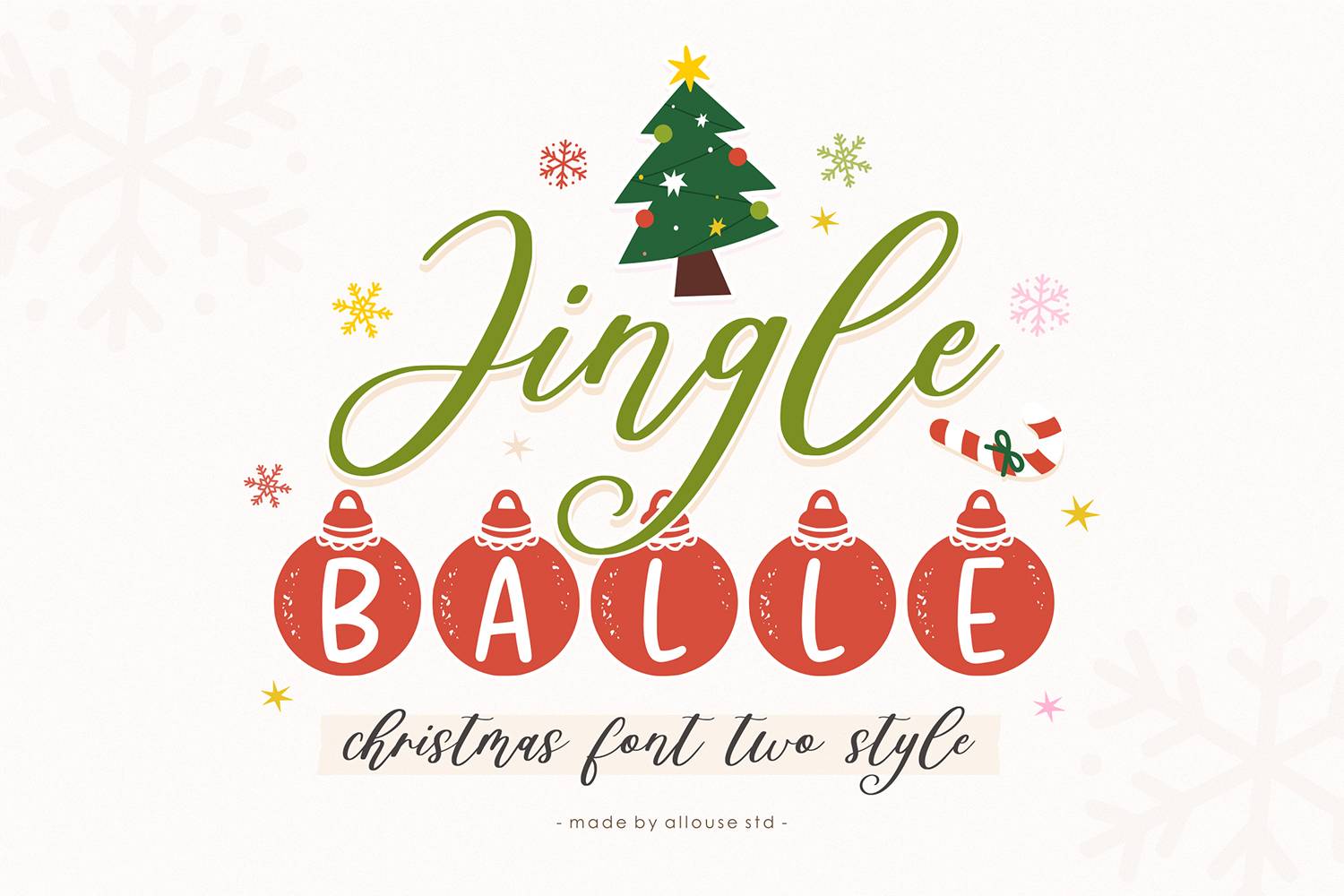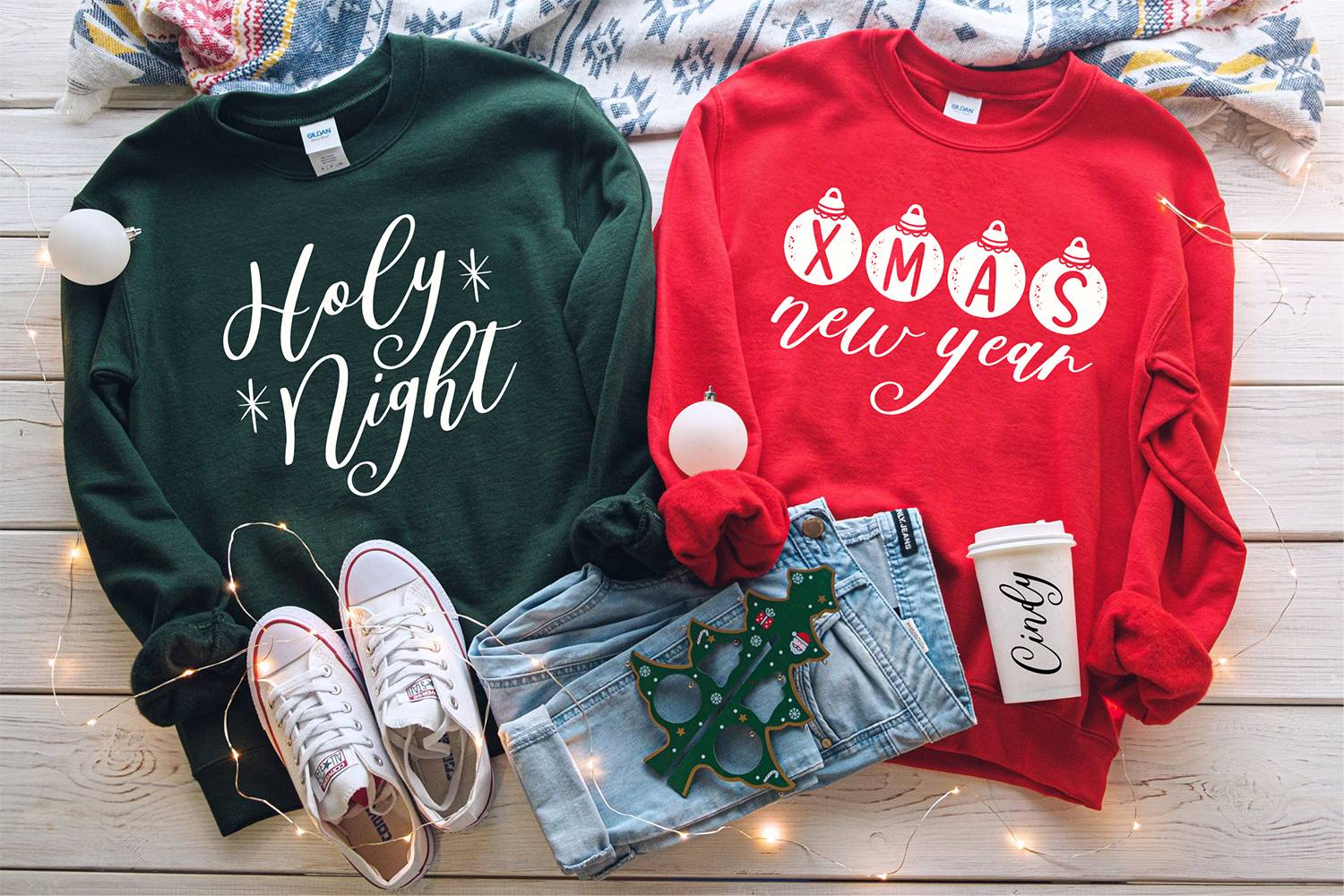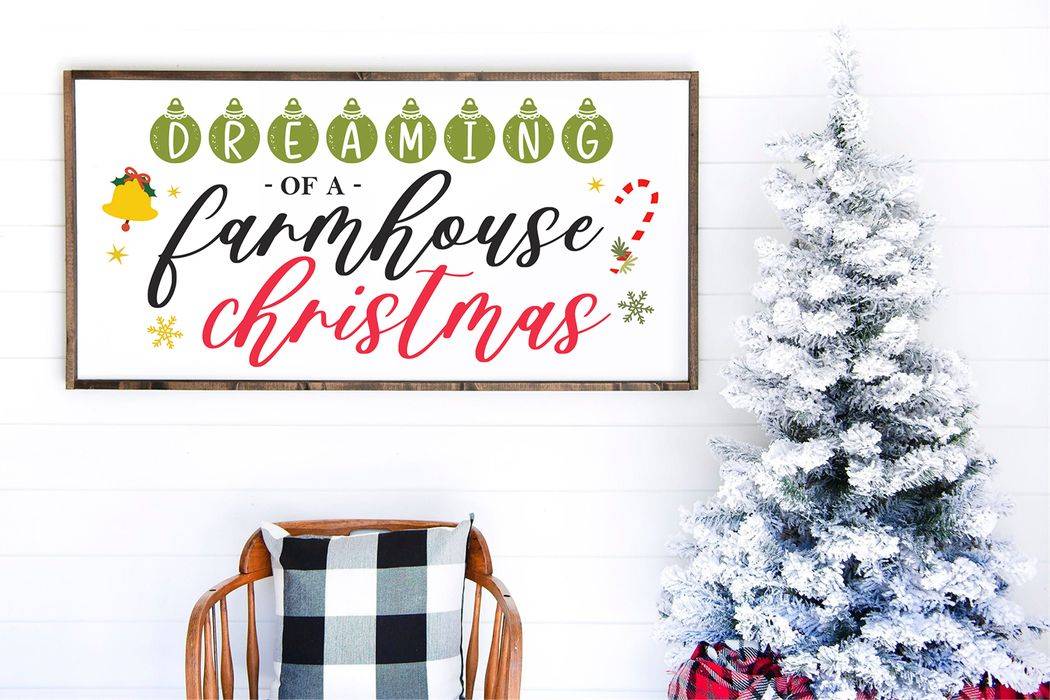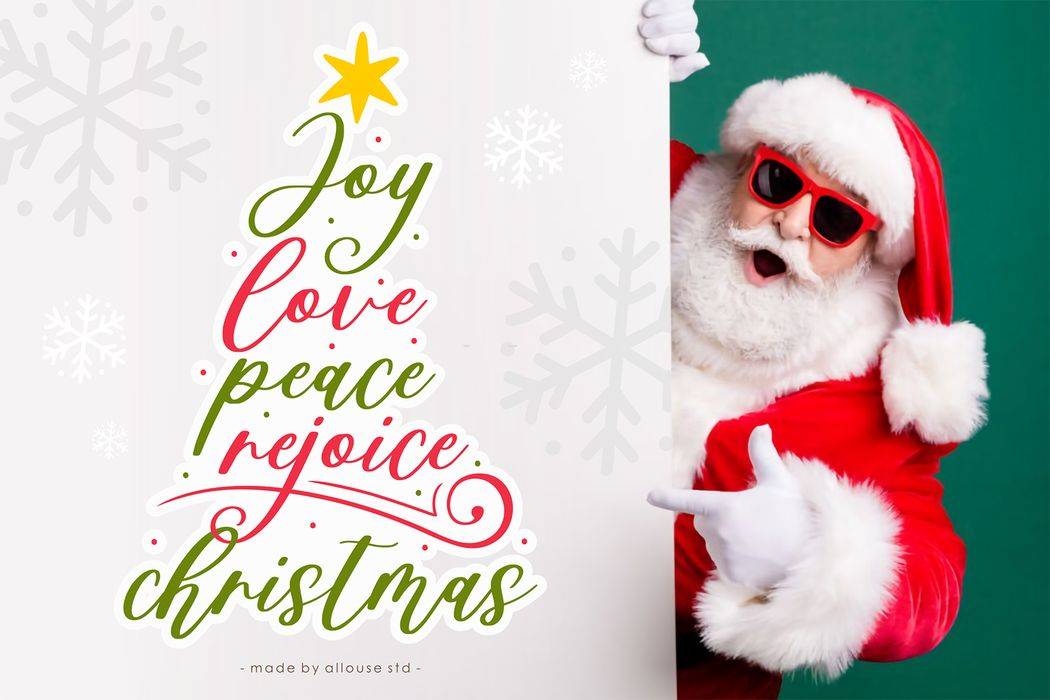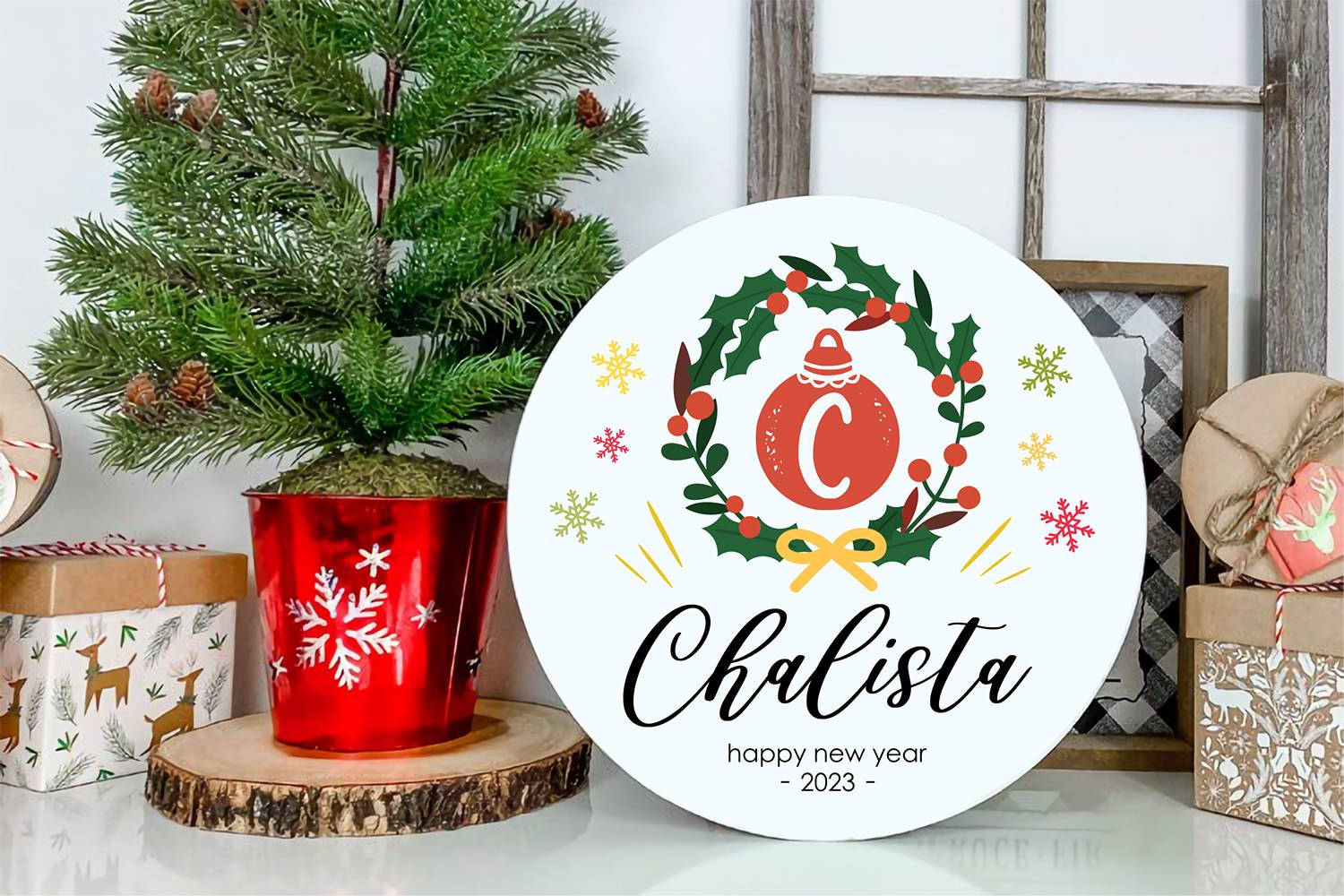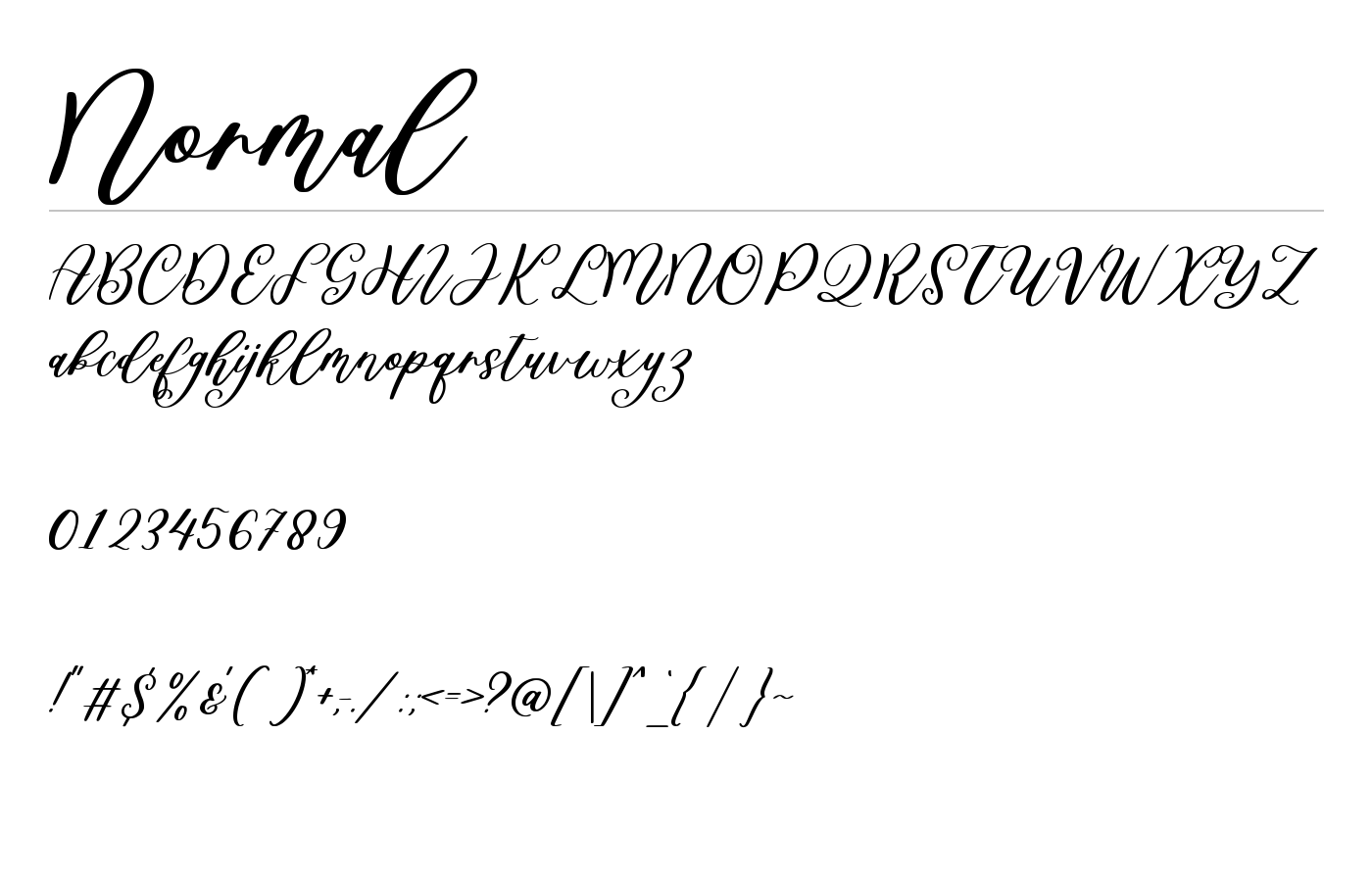
Jingle Balle is an elegant script font with a delicate, flowing style that mimics graceful handwriting. Its high contrast strokes and decorative swashes give it a refined and romantic feel, making it ideal for invitations, branding, and projects that require a touch of sophistication and charm. This font works beautifully in luxury, fashion, and wedding designs where an artistic, personal touch is desired.
Jingle Balle Font
About Jingle Balle Font